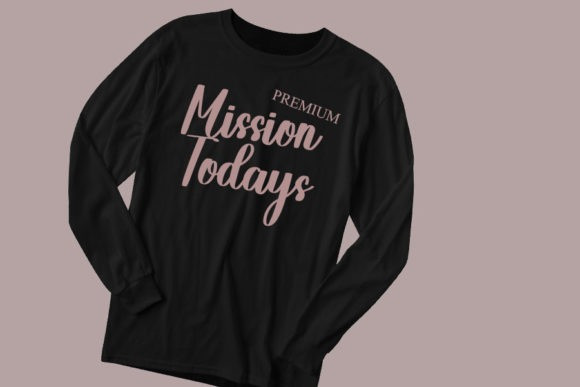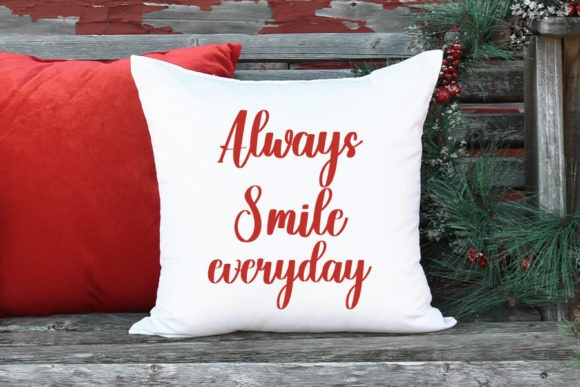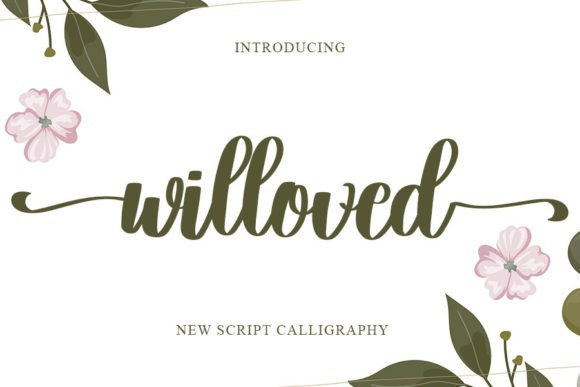
Willoved Script Font
Willoved Script Font is an enchanting script font. This delicate script has a wide spectrum of applications ranging from greeting cards to headlines and logos. Willoved is PUA encoded which means you can access all glyphs and swashes with ease!